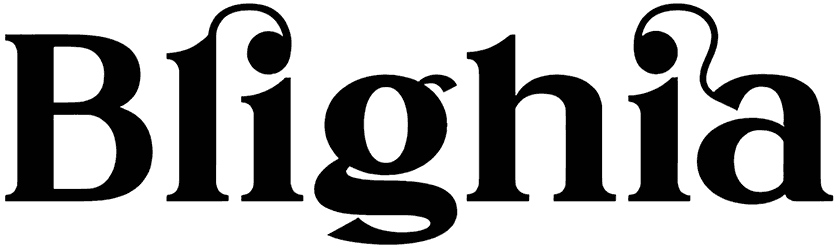
Blighia Font
The Blighia is a fantastic font that impacts your audience at first glance. This serif font’s letters have a classy form that seems stylish and eye-catching.
You may use this ligature font with a charismatic personality for various cases such as book covers, posters, and websites. Moreover, the Blighia font’s bold letters seem entertaining and memorable to the viewers, so take this good-looking font and create a spectacular experience for your audience.